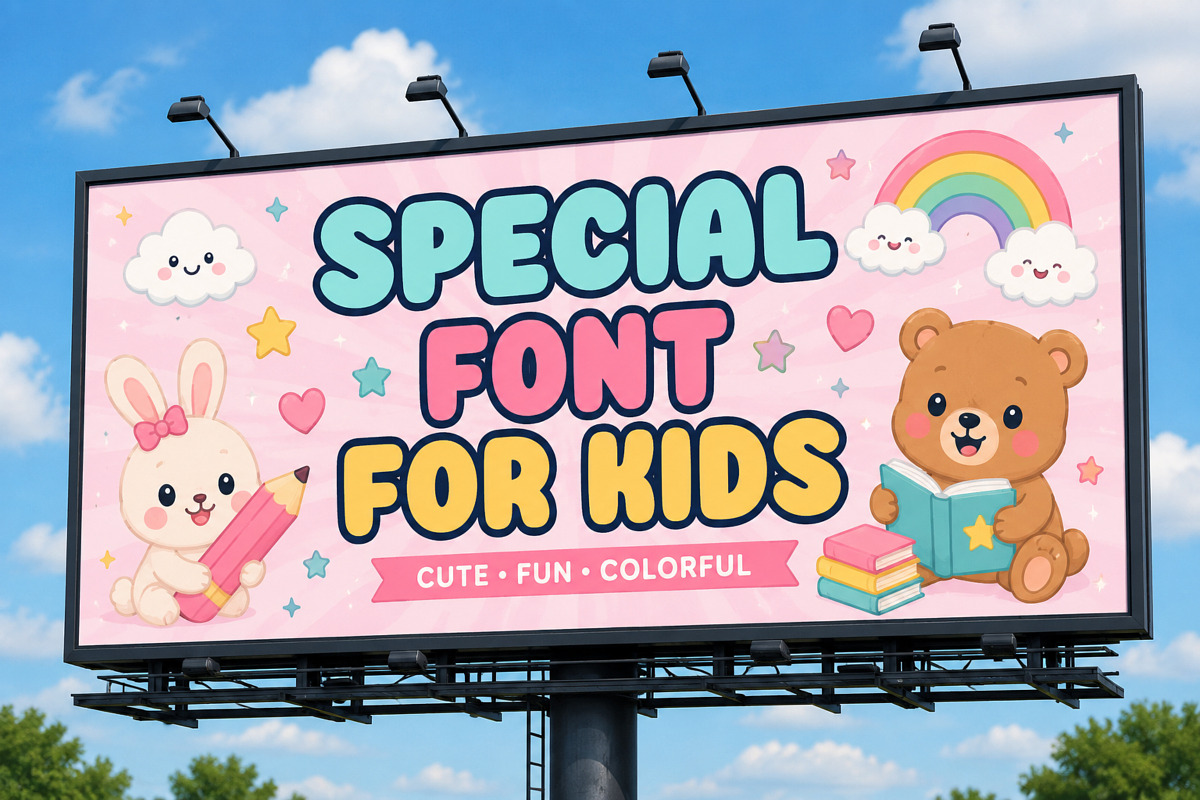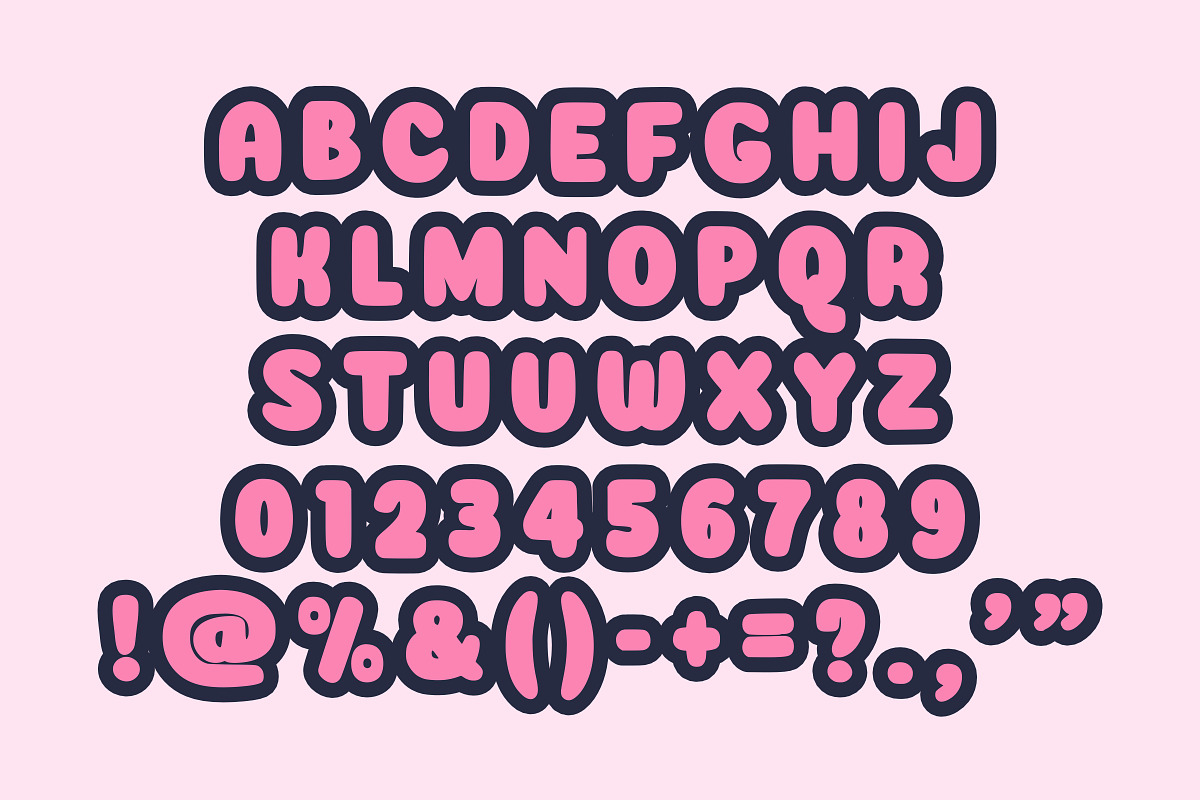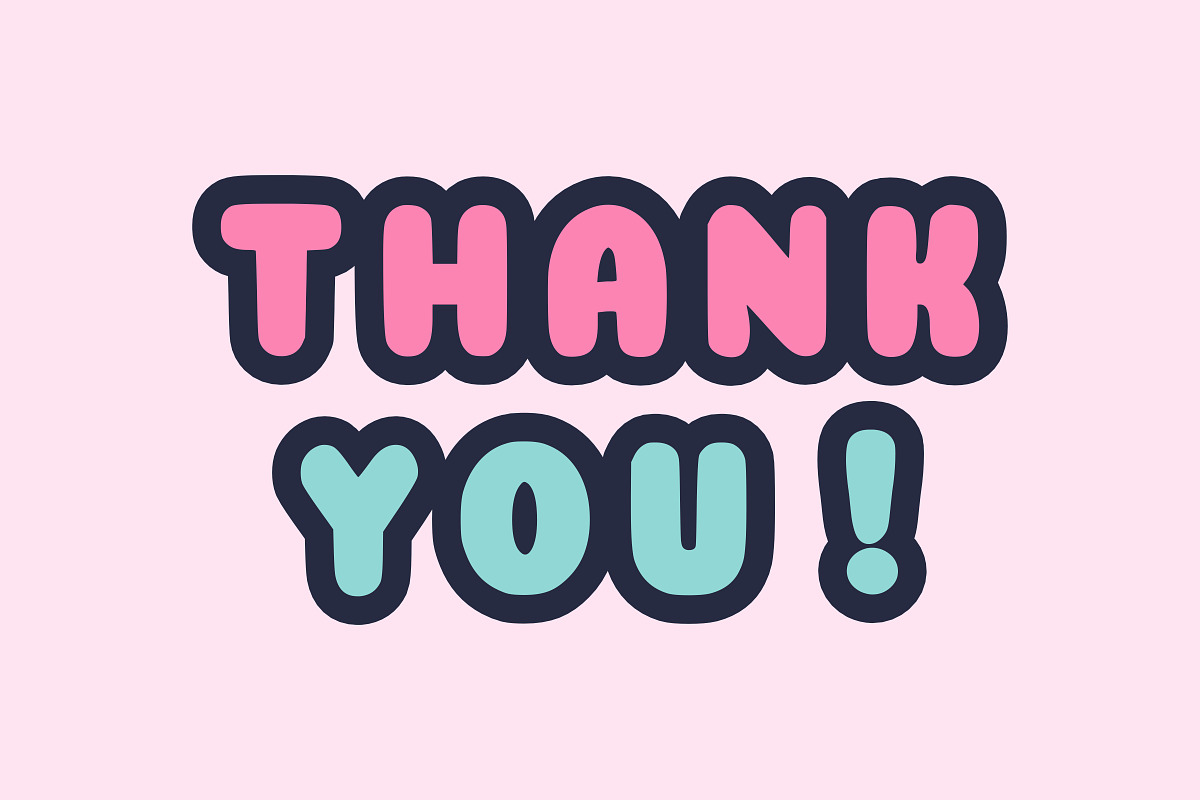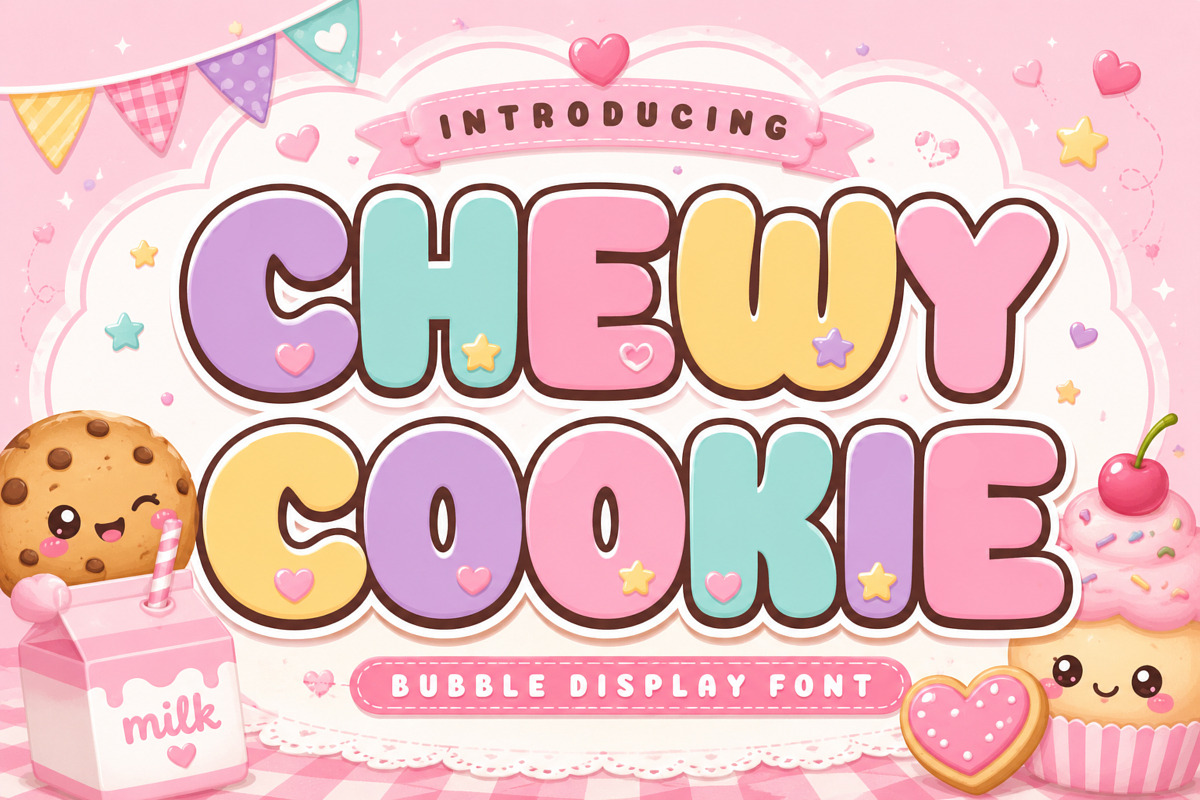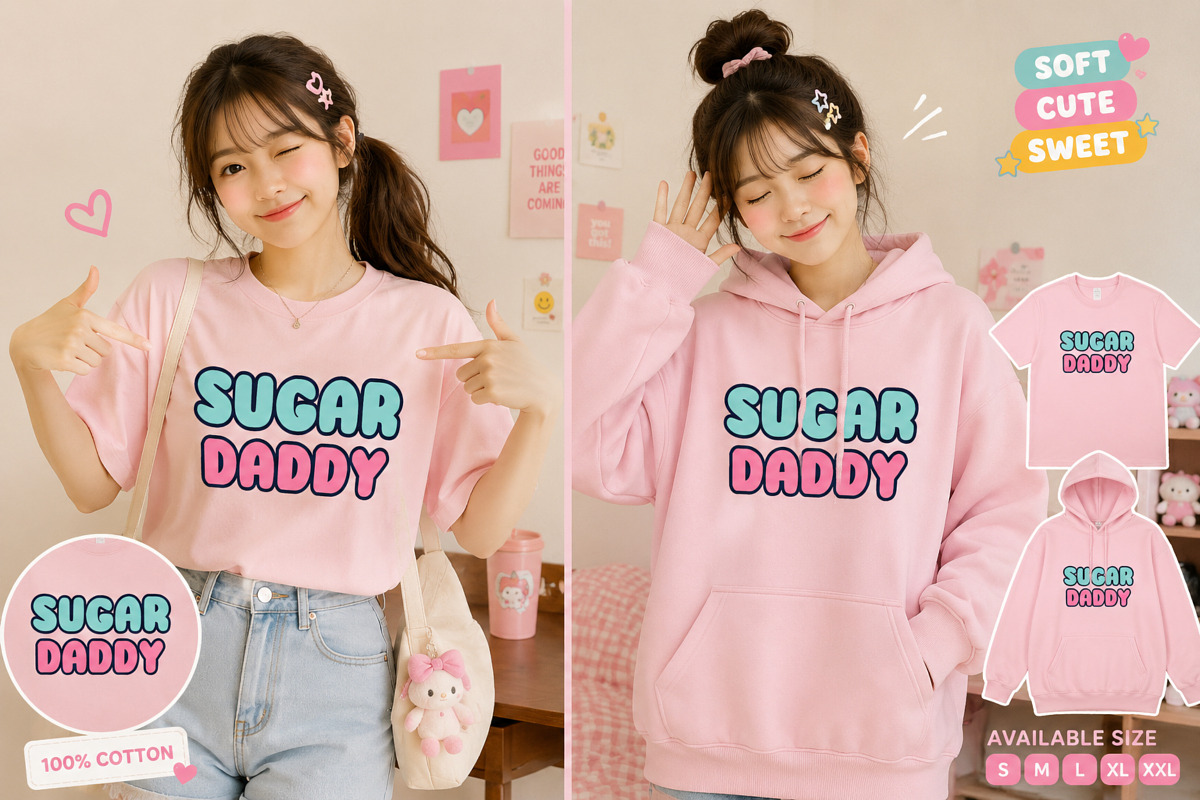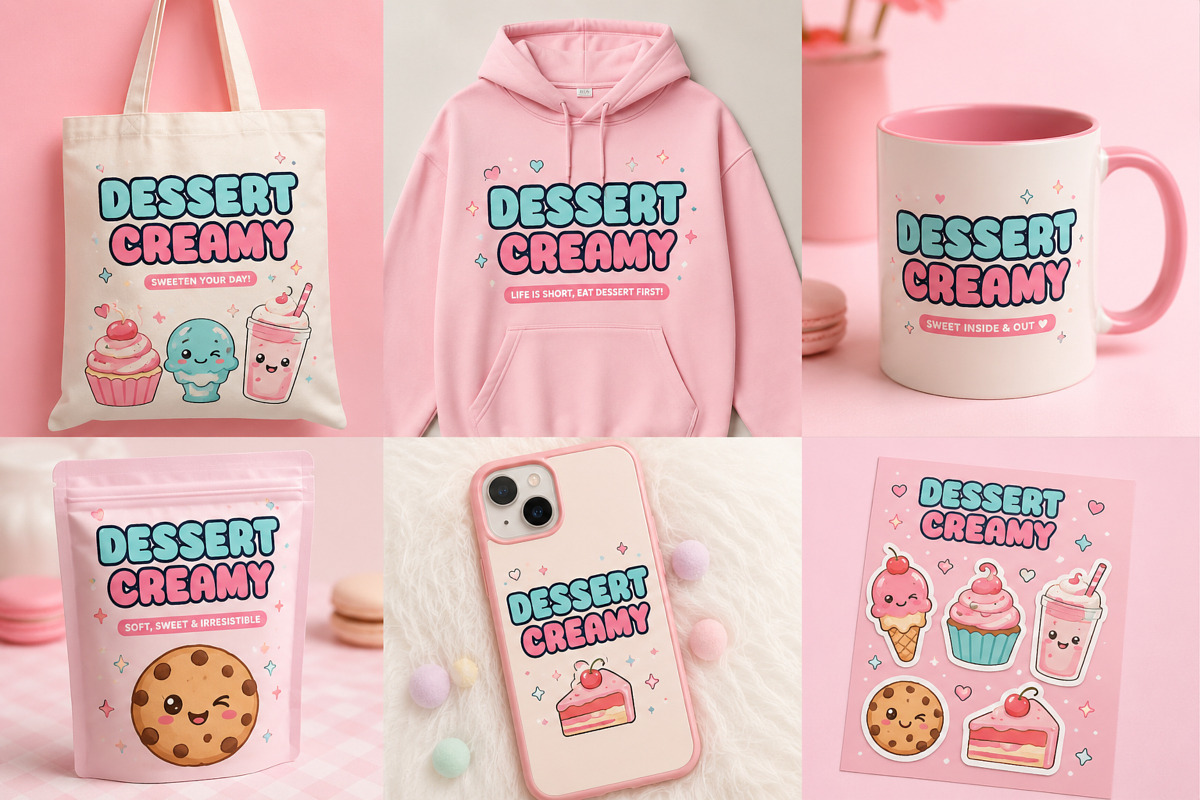
Chewy Cookie
Meet Chewy Cookie, a delightful bubble display font bursting with sweetness and charm. Designed with thick rounded characters and a soft candy-inspired aesthetic, this font instantly creates fun, cheerful, and kid-friendly designs.
Kids Branding
Bakery & Dessert Logos
Candy Packaging
Birthday Invitations
Children's Books
School Projects
T-Shirt & Hoodie Designs
Stickers
Sublimation
Cricut Crafts
Posters
Social Media
YouTube Thumbnails
Greeting Cards
Baby Products
Nursery Decor
Printable Crafts